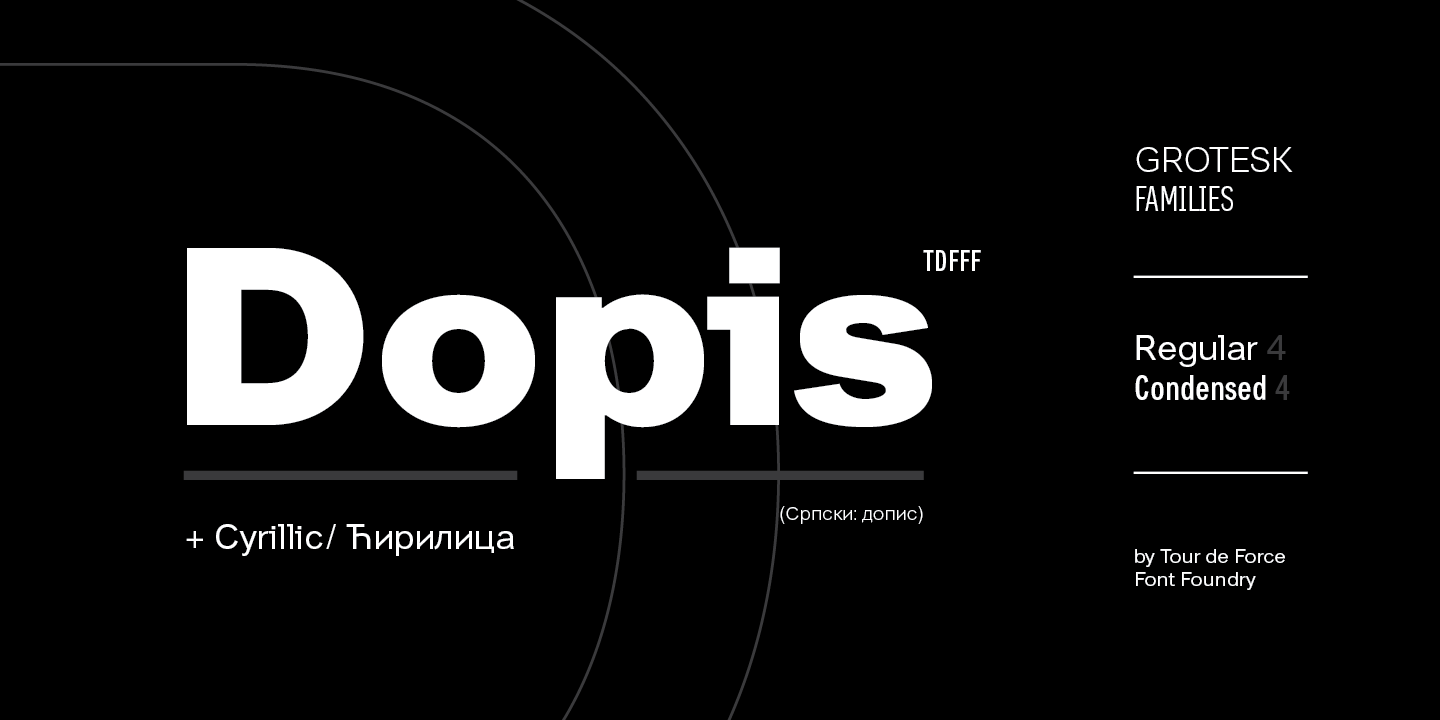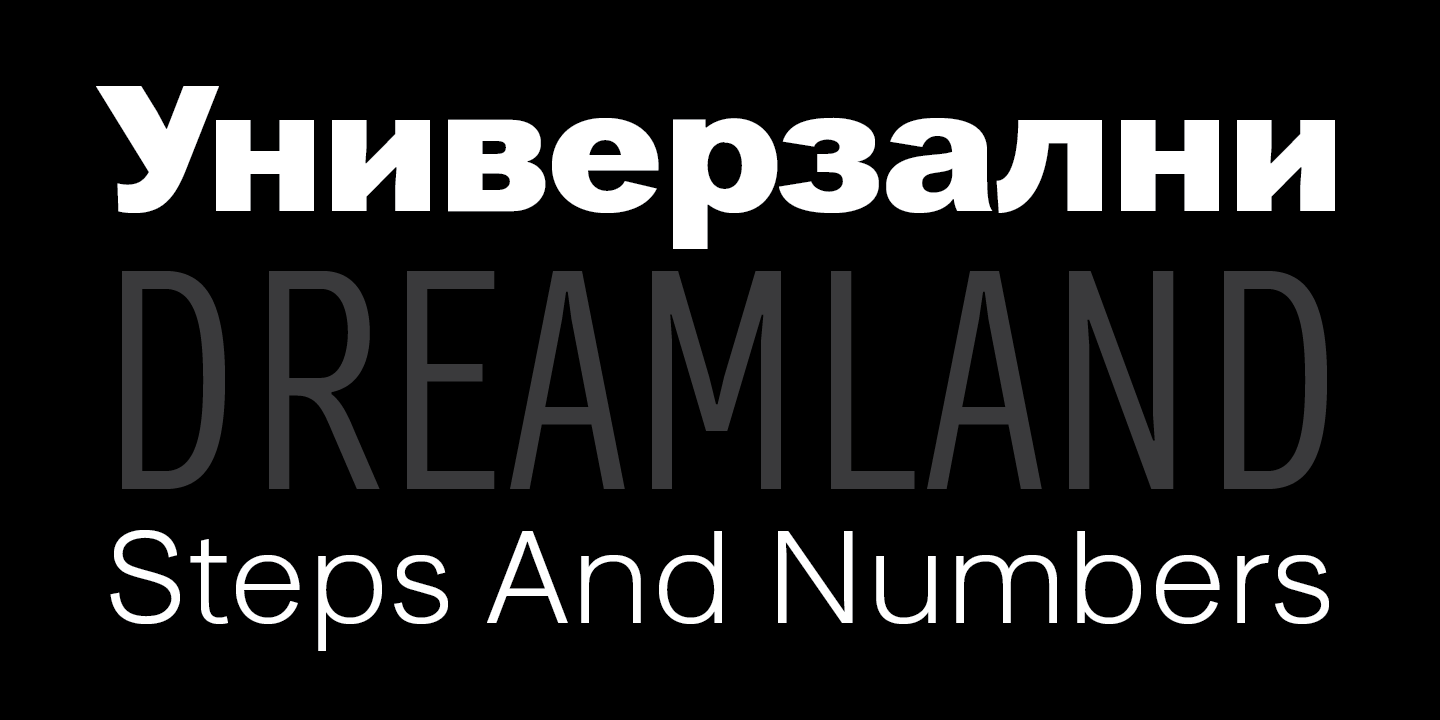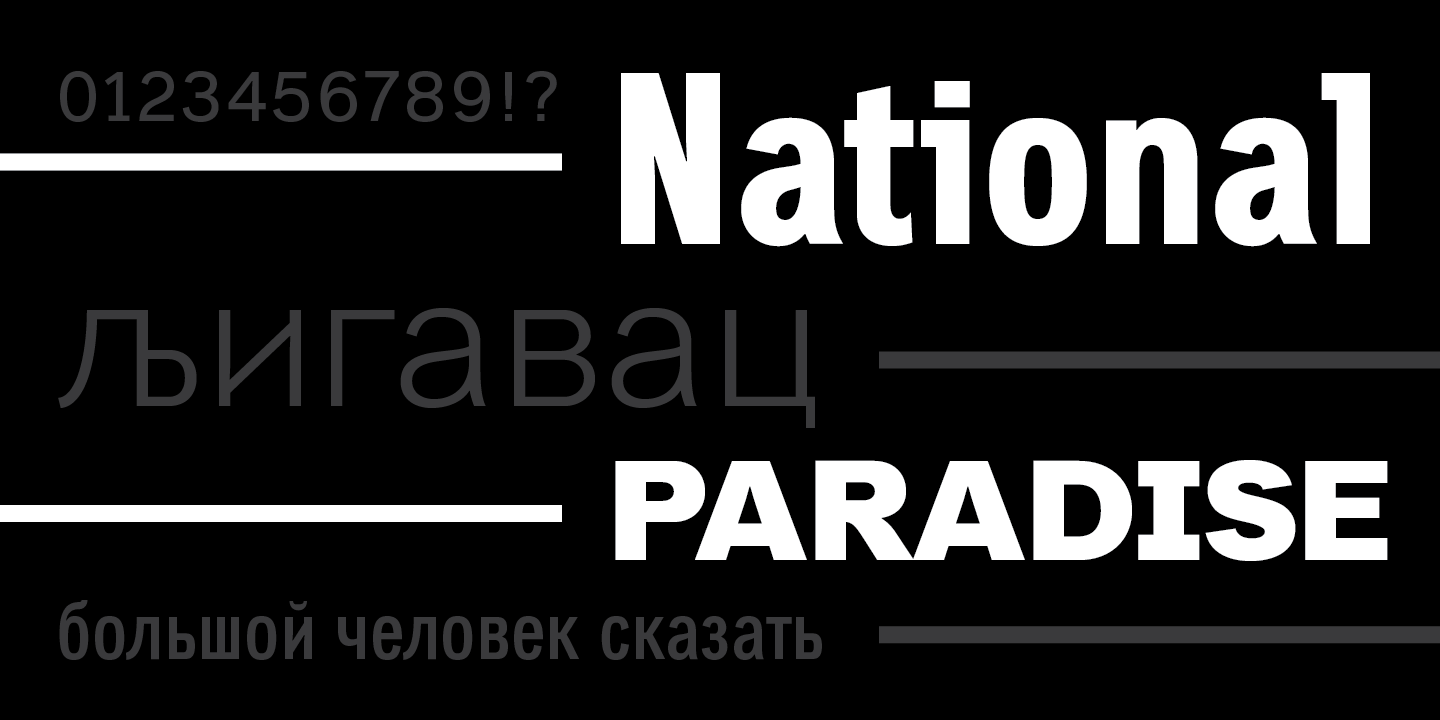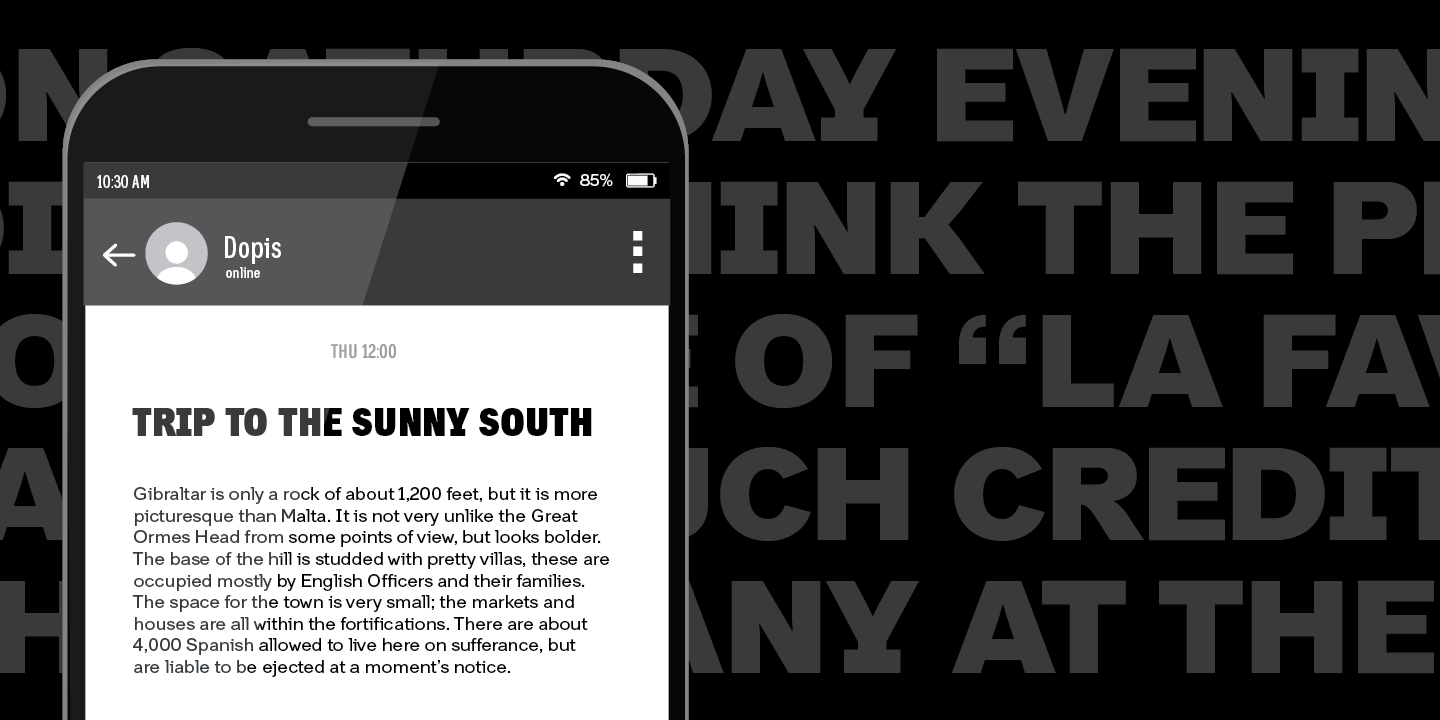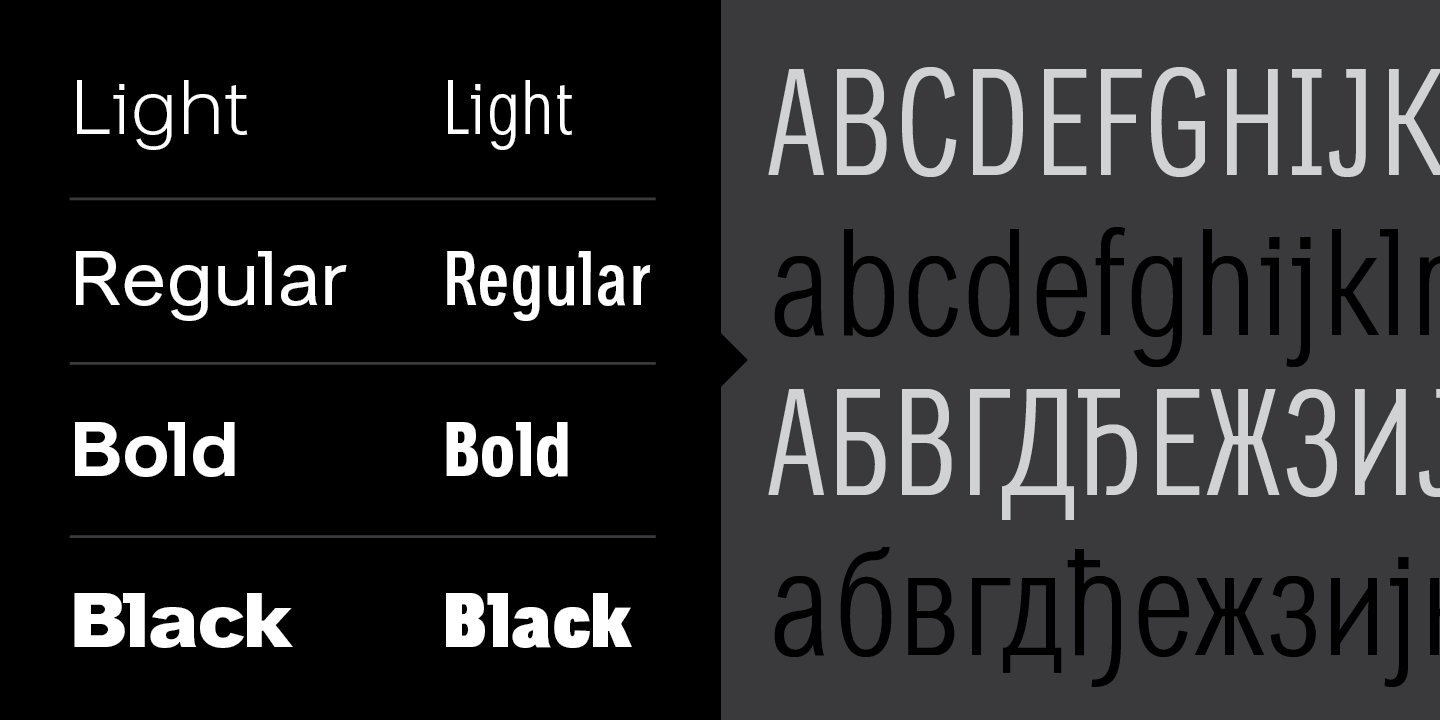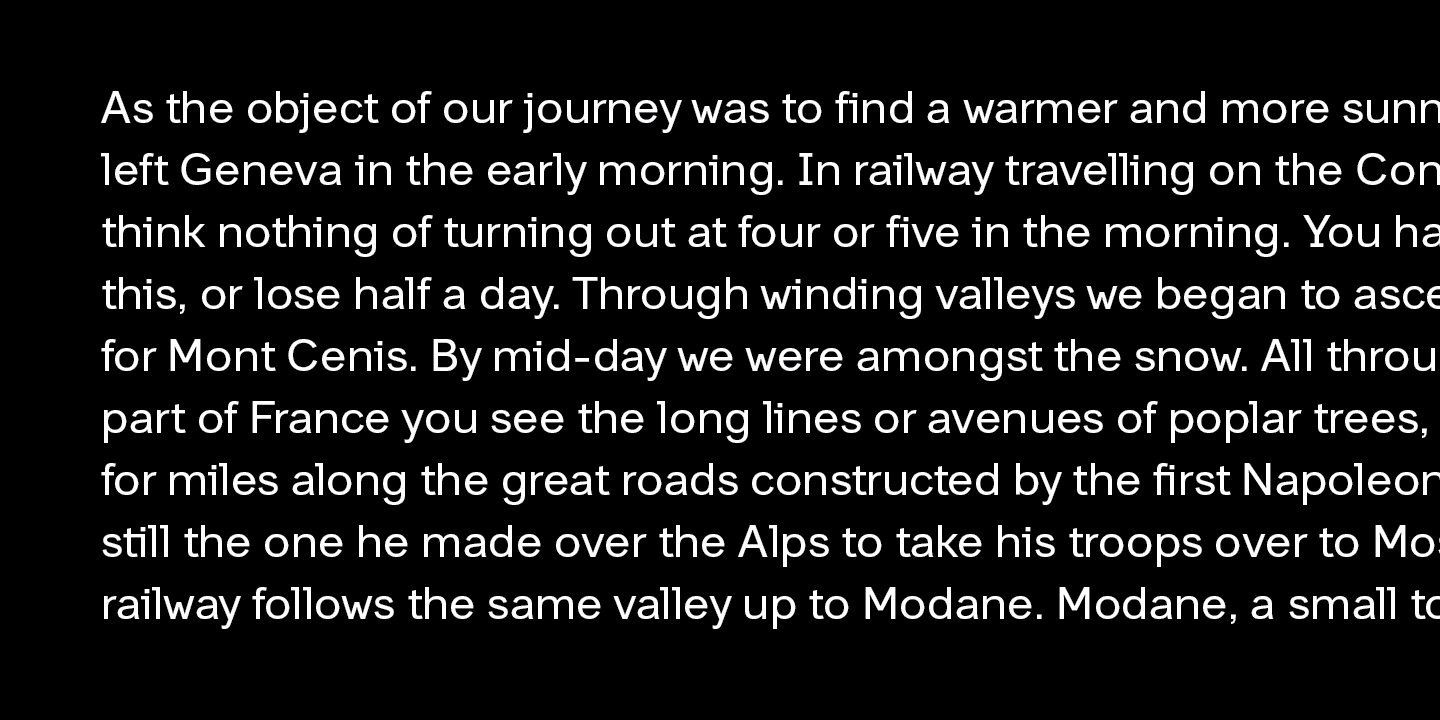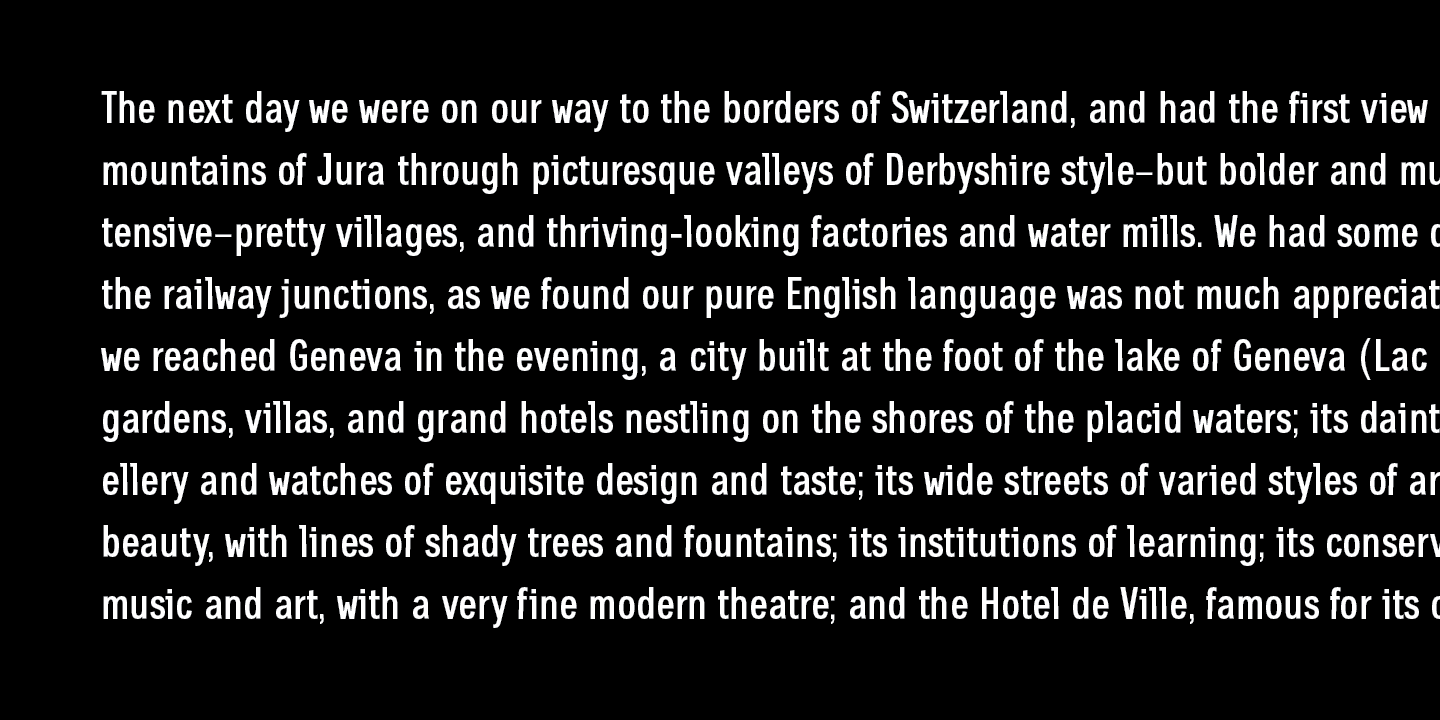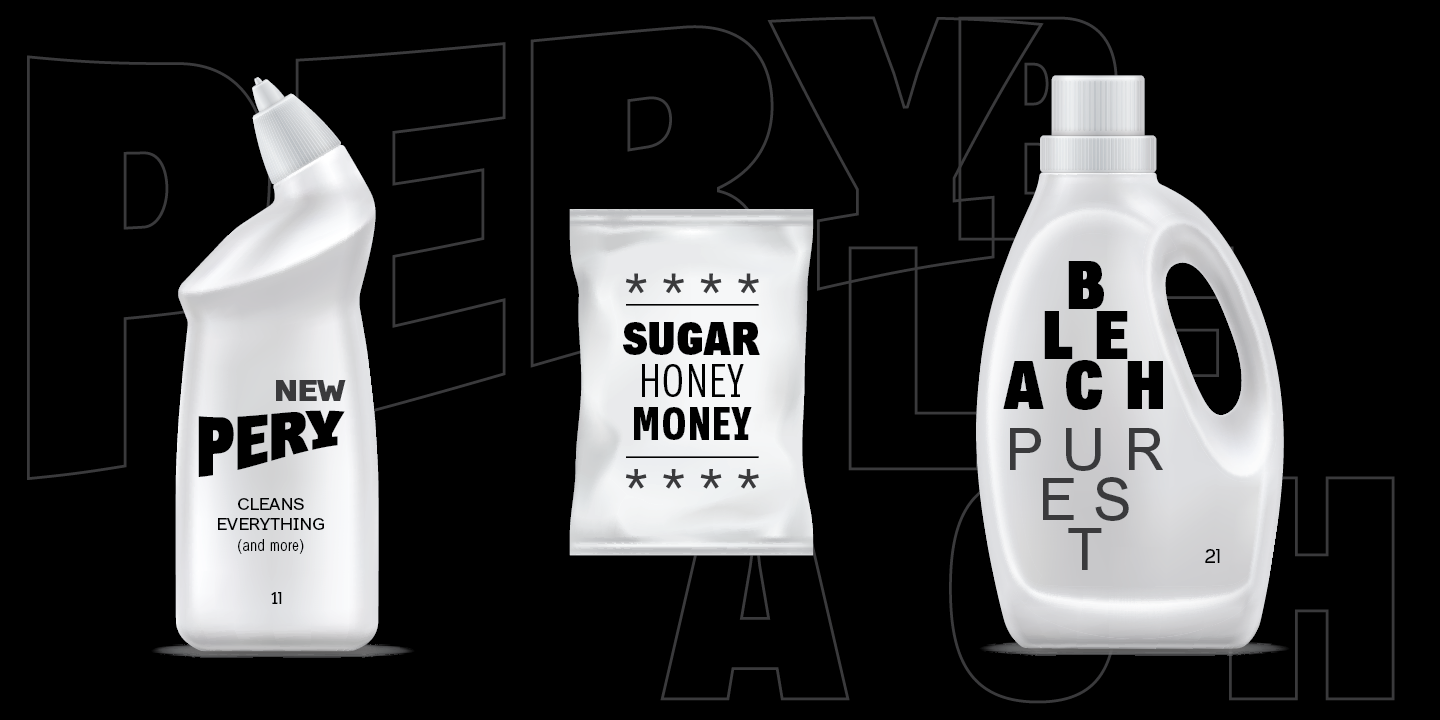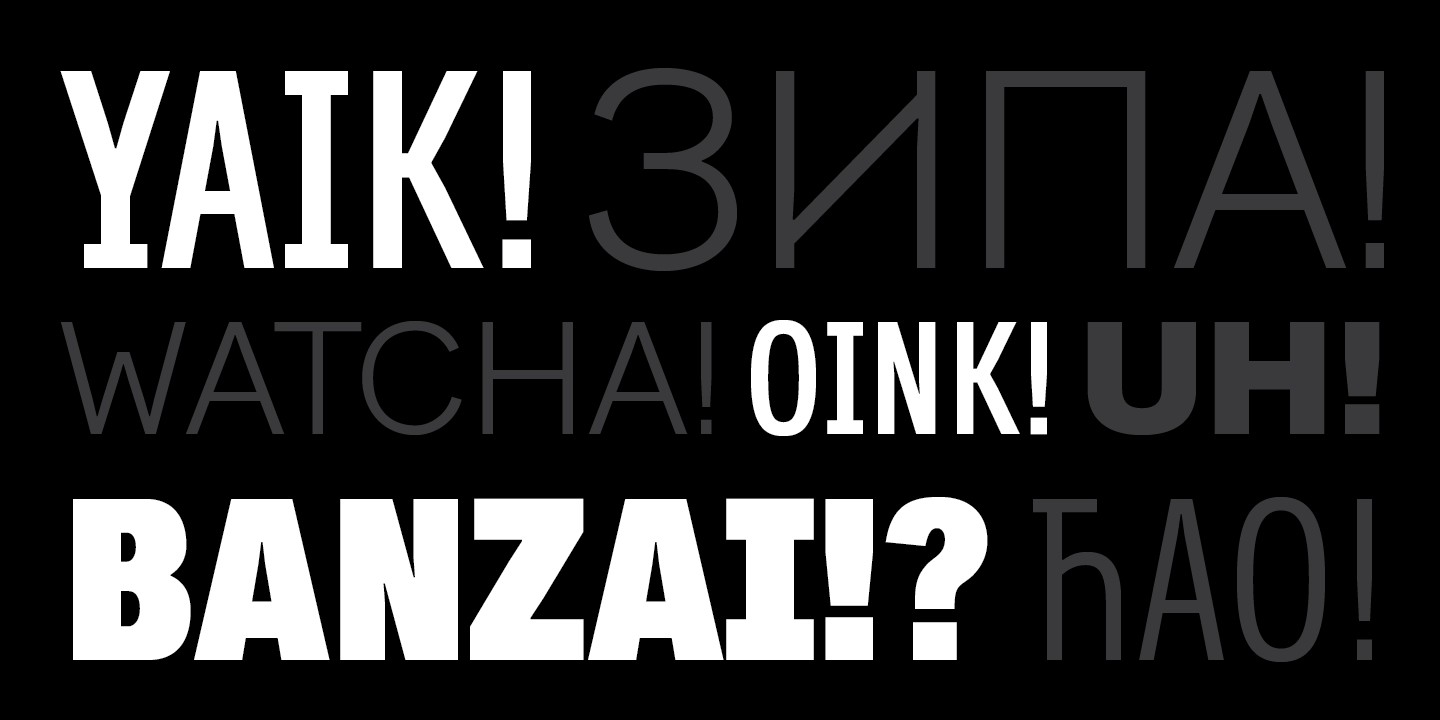
Dopis (Допис on Cyrillic) is neo grotesque family available in four weights and in two widths.
Dopis (Допис on Cyrillic) is neo grotesque family available in four weights and in two widths. It is universal and neutral typeface, fully applicable in every situation.
Contains extended Latin character set with Cyrillic support.